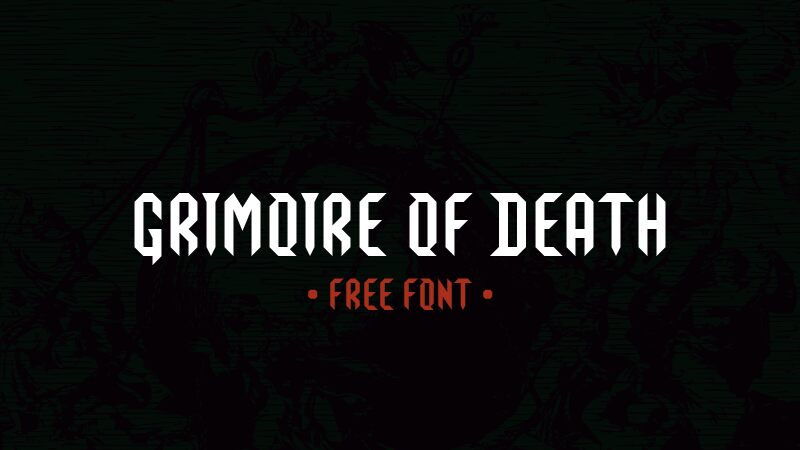
Grimoire Of Death
Grimoire of Death is a modern gothic semi-light font designed by GGBotNet. Its extra-condensed width makes it perfect for projects that require a sleek and edgy look, while its gothic style adds a touch of mystery and intrigue. This font is ideal for designing book covers, posters, logos, and branding materials for horror movies or TV shows. It can also be used to create unique designs for fashion brands or music artists who want to convey an alternative vibe. With Grimoire of Death, your designs will be sure to captivate audiences and leave a lasting impression.